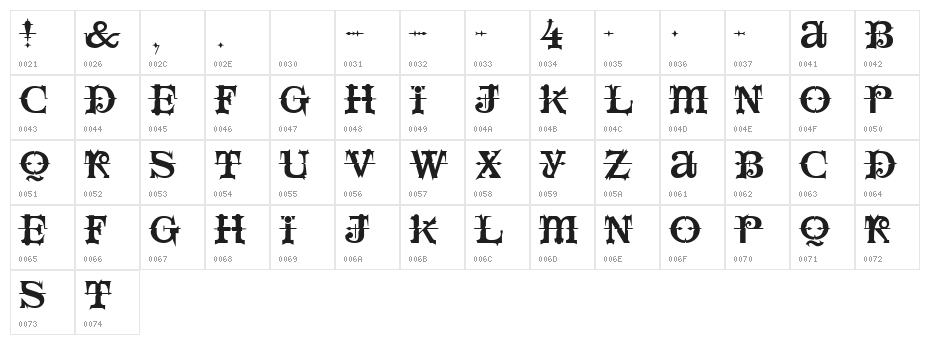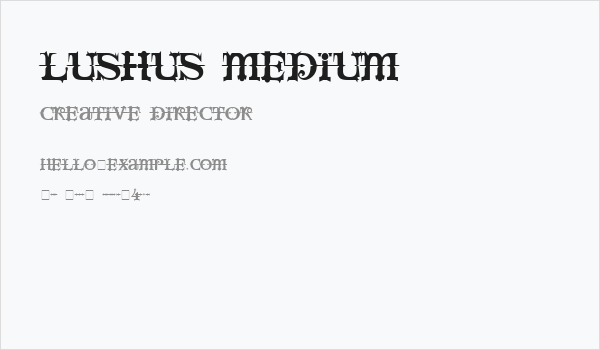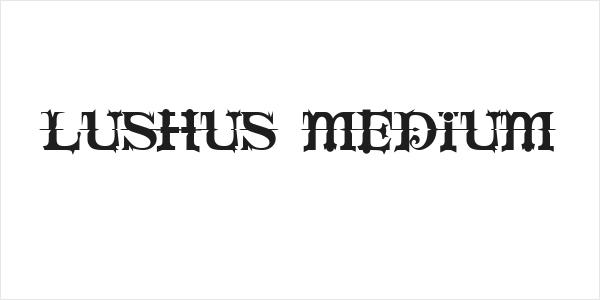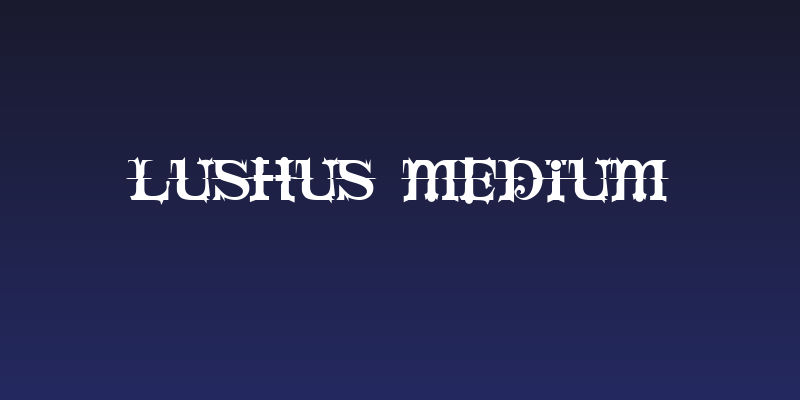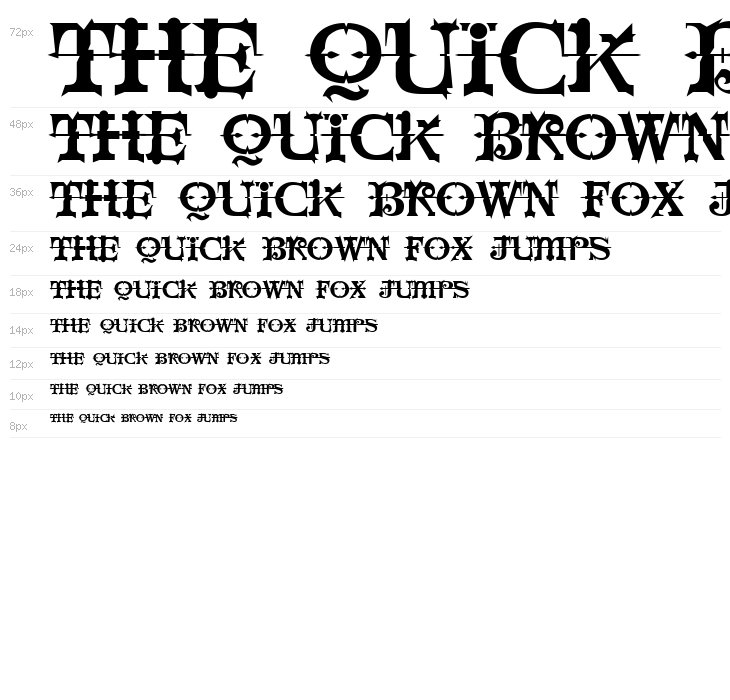
LushUs Medium Font
LushUs Medium Description
This font features a bold and dramatic design with sharp, angular serifs and intricate detailing that gives it a gothic and ornamental appearance. The characters are heavily stylized, with unique embellishments that create a sense of movement and flair. The uppercase and lowercase letters maintain a consistent style, emphasizing the font's decorative nature. The numbers and special characters are equally ornate, with flourishes that enhance the overall aesthetic. This font is ideal for projects that require a striking and memorable visual impact.
| Overall Style | Gothic, Decorative |
| Proposed Projects | Ideal for album covers, posters, branding for edgy or alternative products, and any design needing a dramatic flair. |